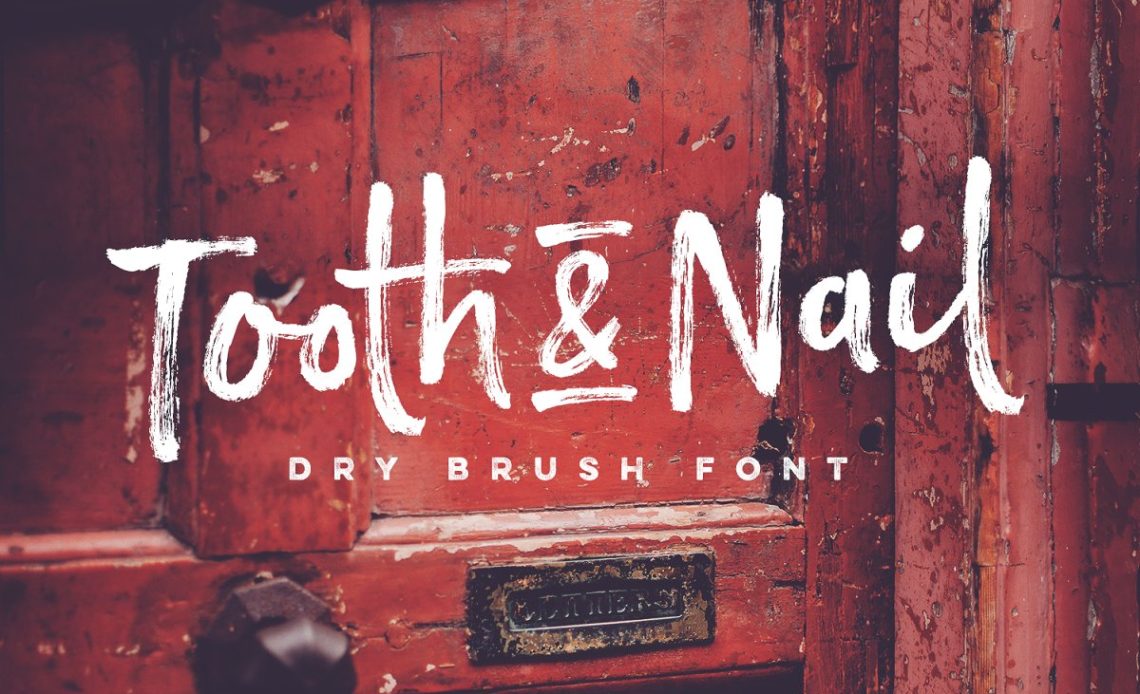
Introducing Tooth & Nail Dry Brush Font, a captivating and versatile addition to your font collection. Created by the talented Sam Parrett, this hand-painted font is perfect for adding a rustic and hearty touch to your designs. Whether you're looking to elevate your social media posts or create eye-catching product packaging, Tooth & Nail is the answer.
With its all-caps and lowercase options, Tooth & Nail gives you the freedom to express yourself in various styles. Its rough bold strokes and high-quality textures add depth and character to your text, creating a truly handmade feel. This font is like meeting an old friend for the first time – reliable, familiar, and comforting.
But what's included in this incredible package? When you download Tooth & Nail, you'll receive two font files and a bonus vector pack. The font files feature upper and lowercase characters, numerals, and a wide range of punctuation. Additionally, you'll find Tooth & Nail Alt, a second version with a unique set of lowercase characters. This allows you to create custom-made styles and experiment with different word shapes effortlessly.
To enhance your designs even further, the Tooth & Nail Vector Pack is at your disposal. This pack includes 24 hand-brushed elements that perfectly complement the font. From swashes and arrows to paint splatters and frames, these elements will take your designs to the next level.
Tooth & Nail is not limited by language barriers. It offers multilingual support for a wide range of languages, including English, French, Italian, Spanish, Portuguese, German, Swedish, Norwegian, Danish, Dutch, Finnish, Polish, Indonesian, Filipino, and Malay.